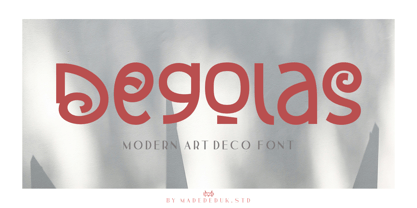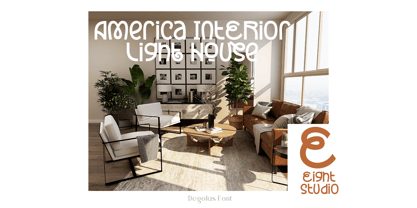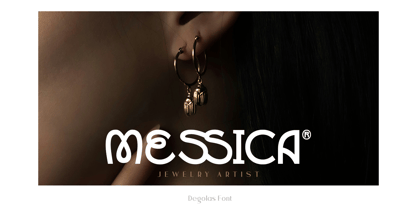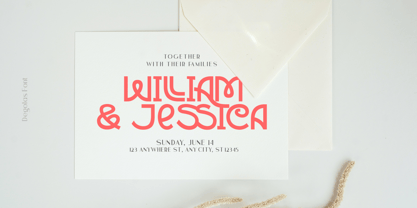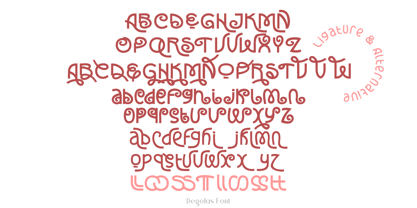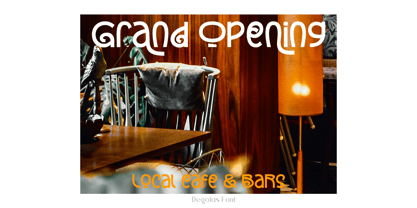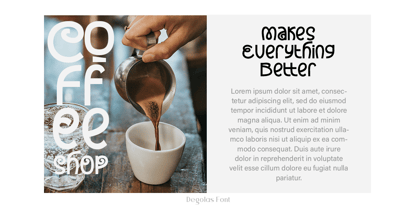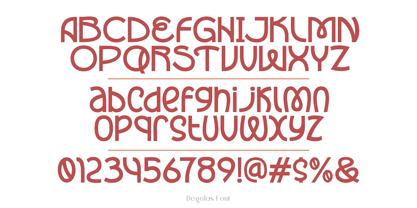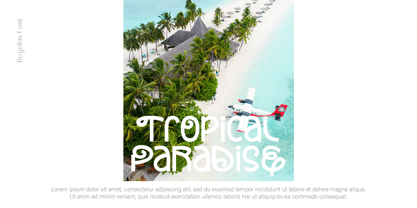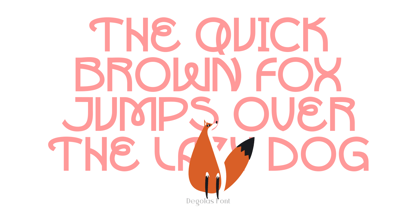
Degolas
by madeDeduk
The Degolas Font Family was designed by madededuk and published by madeDeduk. Degolas contains 1 styles. More about this family
Inspired by the art deco create a sleek and elegance vintage. It combined modernist simple style, clean shapes that is geometric. use this font for any branding, product packaging, headline, invitation, quotes, t-shirt, label, poster, logo etc.